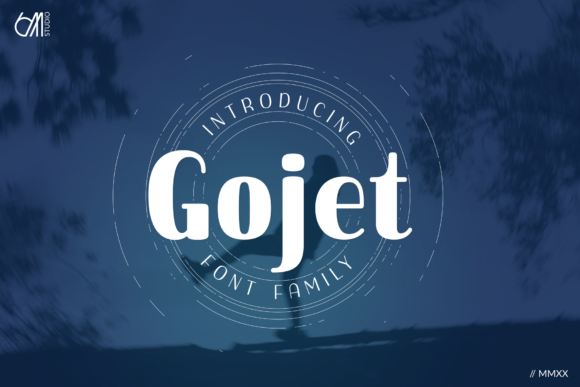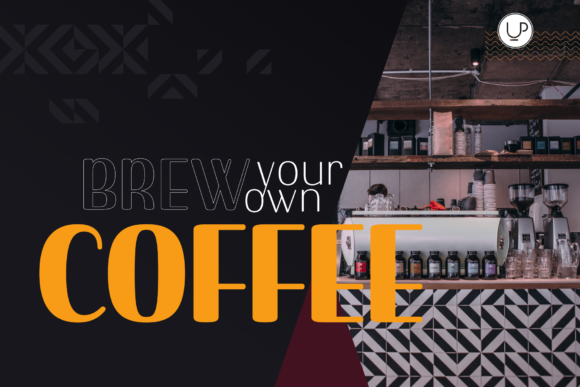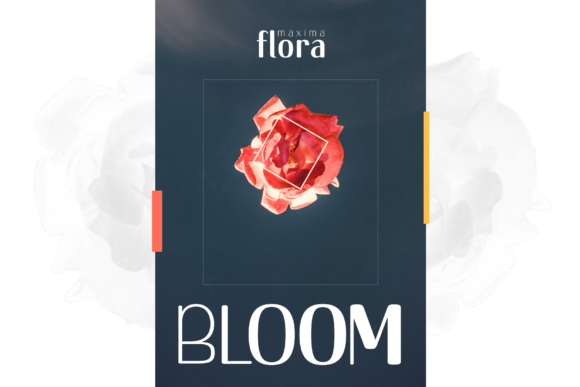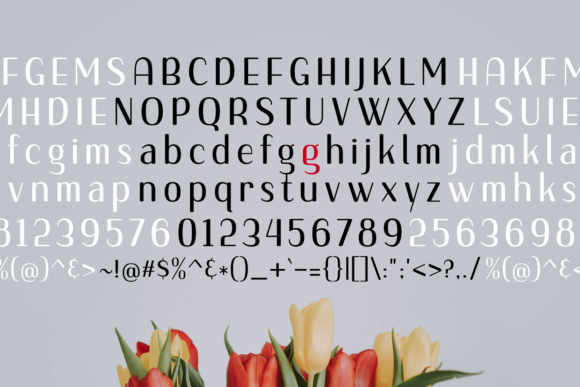
Gojet Font
About the Gojet Font
Let us introduce you to Gojet Font, where timeless design meets modern craftsmanship. Gojet is a bold and modern sans serif font. This original look will appeal to a wide range of crafty ideas, from letterheads and titles, to stationery.
Gojet’s strong, geometric forms make it ideal for headlines, logos, and short, impactful text in branding materials and posters. It projects a modern, confident personality, perfect for tech startups, innovative products, or bold marketing campaigns. Avoid using Gojet for body copy or lengthy paragraphs; its bold weight can strain readability at smaller sizes.
Pairing Gojet effectively requires considering its assertive nature. A clean, neutral sans-serif like Lato or Open Sans offers a complementary contrast for supporting text, balancing Gojet’s boldness. For a more sophisticated feel, a subtle serif like Merriweather can add a touch of elegance and readability to smaller text elements. Avoid pairing it with overly decorative or script fonts, which could clash with its geometric simplicity.
Gojet’s inherent energy makes it unsuitable for applications requiring understated elegance or delicate detail, such as wedding invitations or luxury product packaging. Its strength lies in conveying a sense of dynamism and forward momentum.